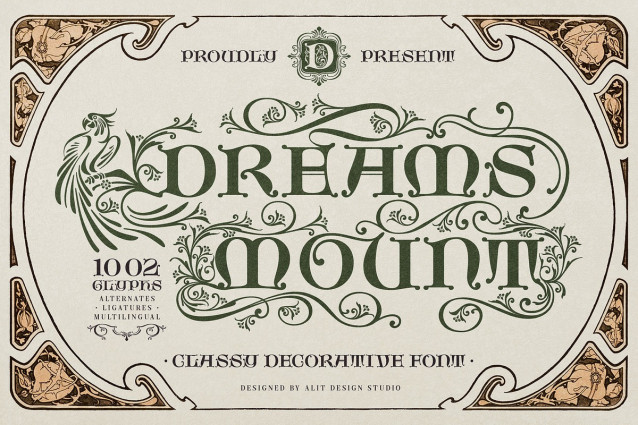
Dreams Mount Font
Dreams Mount Font, a breathtakingly elegant decorative font that captures the soul of the Art Nouveau movement. If you’ve ever been mesmerized by the flowing, organic lines of an antique book cover, the romanticism of a vintage poster, or the timeless grace of classical forms, Dreams Mount is the typeface you’ve been waiting for. It is more than a font; it is an artist’s toolkit designed to infuse your work with a level of beauty and sophistication that is simply unforgettable.
Inspired by the masters of Art Nouveau, Dreams Mount echoes the movement’s obsession with natural forms, elegant curves, and intricate detail. Each letter flows with life, creating a harmonious rhythm that is both classic and deeply expressive.